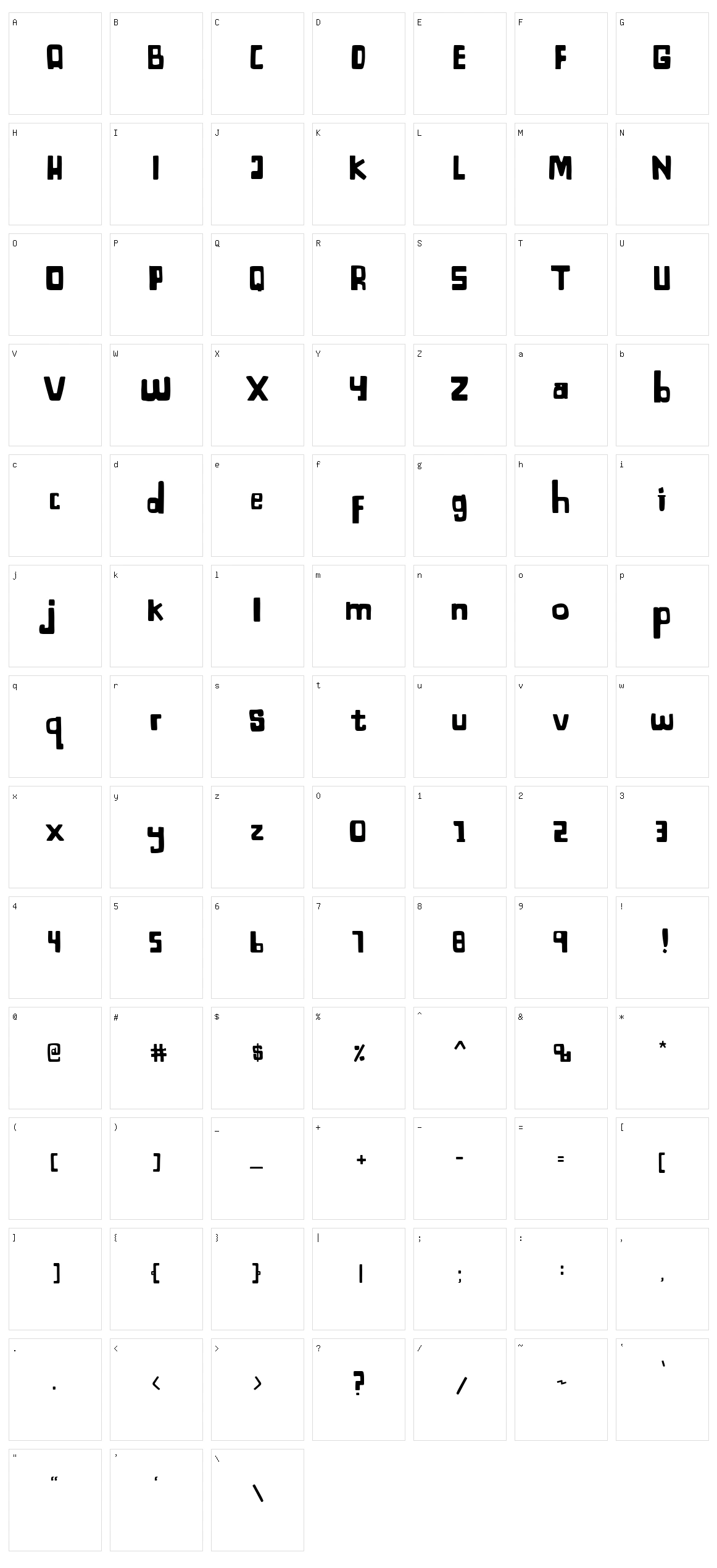
The free font Bagayaga is carefully designed by Four Lines, showcasing a thoughtful balance of creativity and usability and falls under the Cartoon font style. When you download the ZIP file, it contains only 43.1 KB of font files, making it lightweight and quick to download. Please review the license details below to understand permitted usage and distribution rights. If license information is not available, we recommend using this font for personal projects only or contacting the author directly for commercial usage permissions.